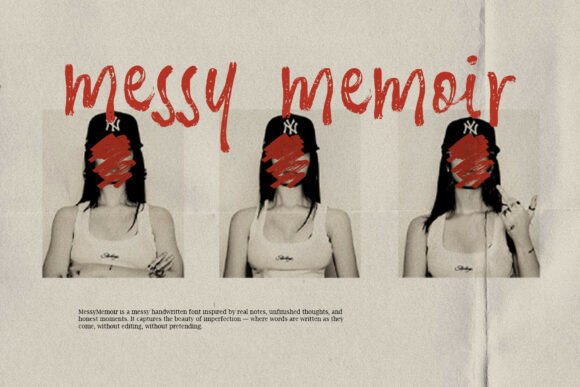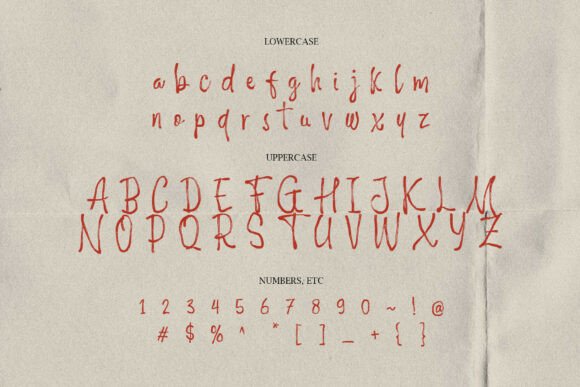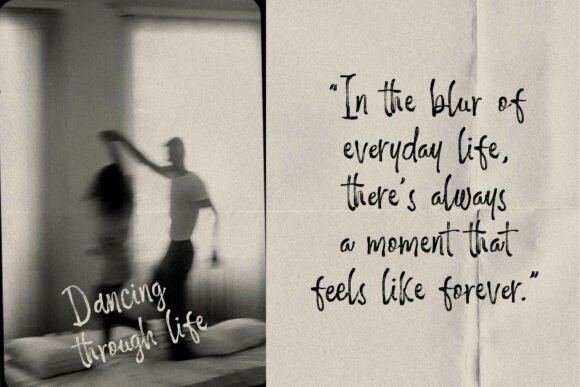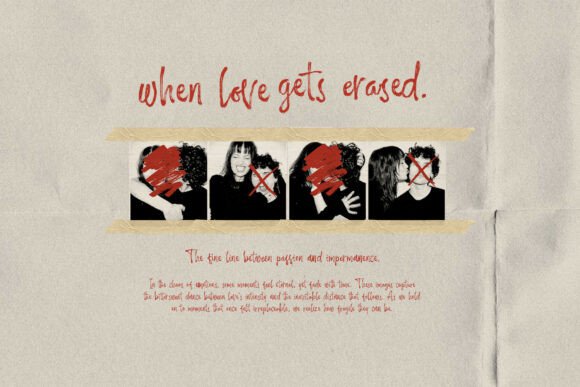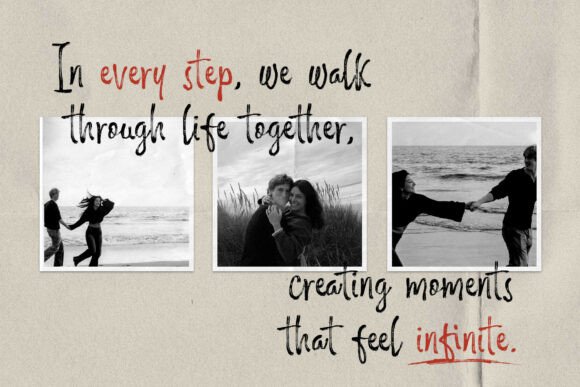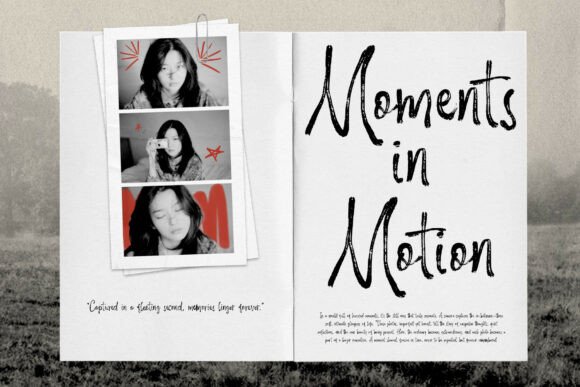
Introduction to Messy Memoir Font
TimedLess is a raw, expressive handwritten font that captures the feeling of fleeting moments and memories that refuse to fade.
Inspired by personal letters, blurred photographs, and honest emotions, it embraces natural imperfections, uneven strokes, and spontaneous movement to create a look that feels intimate and real Every letter carries a sense of urgency and vulnerability like words written in the middle of a thought, without editing or overthinking.
Key Features of Messy Memoir Font
Why Choose Messy Memoir Font?